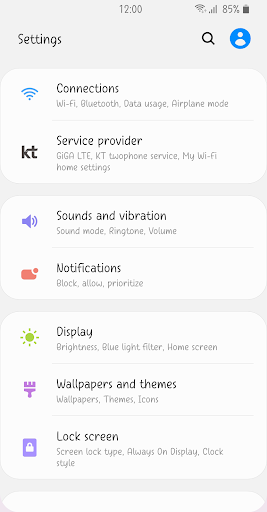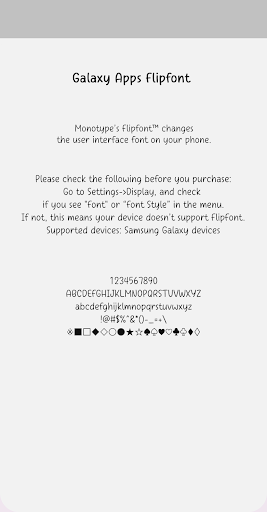
Fine Betterday
It's a cute handwritten style font.
This font is characterized by a cute, round shape and uniform thickness.
Let's remember your pure love and brilliant dreams even in the repeated daily life.
A better today than yesterday, a better tomorrow than today.
Forget all the days gone by, Better Day